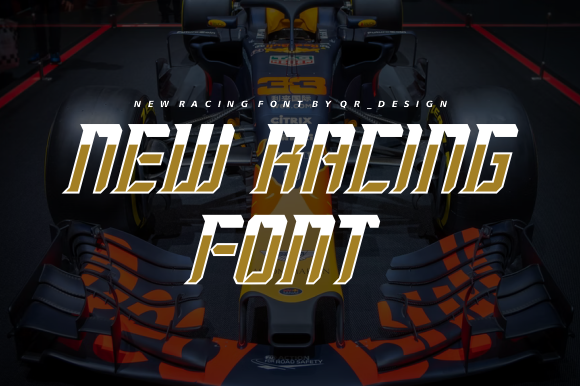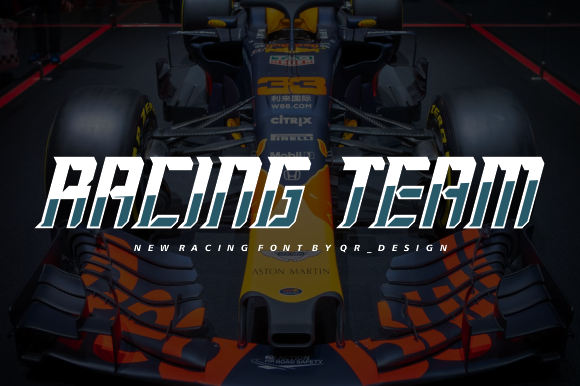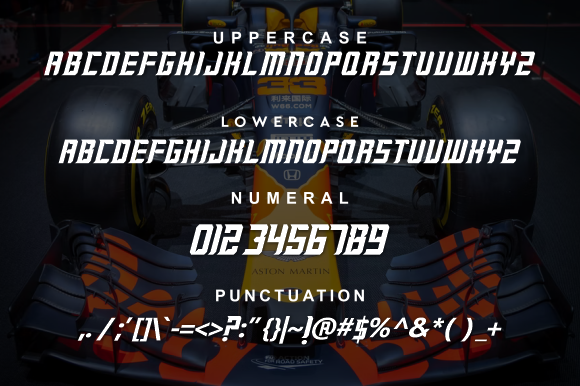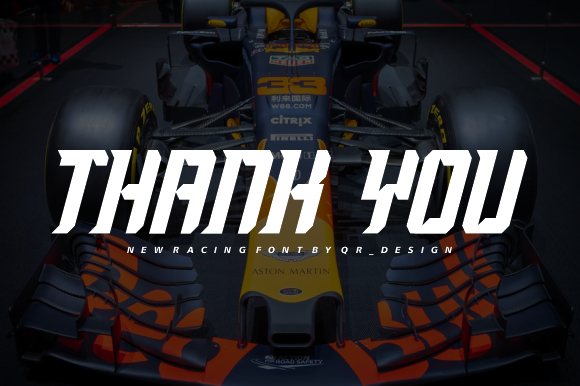
The Thrill of the Fast Lane: Unleashing the Power of Faster Racing Font
I’ll never forget the time I was working on a project for a client who wanted a bold, eye-catching font to capture the essence of speed and adrenaline. I scoured the internet, tried countless fonts, but nothing seemed to quite fit the bill. That was until I stumbled upon Faster Racing Font. It was like a breath of fresh air – the perfect blend of style, sophistication, and raw energy. In this article, I’ll share my experience with this amazing font, its features, and how to make the most of it in your designs.
An Honest Review of Faster Racing Font
- ✨ Bold and Authentic: Faster Racing Font is the real deal. Its bold, authentic design screams speed and performance, making it perfect for sport, automotive, car moto speed races, and other dynamic scenes.
- ✅ Trendy and Versatile: This font is incredibly versatile, suitable for a wide range of applications, from posters and flyers to social media graphics and website headers.
- 💥 High-Impact: The font’s bold design ensures it stands out, even at smaller sizes, making it ideal for creating high-impact visuals.
While Faster Racing Font is an excellent choice, there are a few things to keep in mind:
- ⚠️ Legibility at Small Sizes: While the font is bold, it can become a bit tricky to read at very small sizes. Make sure to test it in your design to ensure it remains legible.
- 🤔 Limited Formality: Due to its bold, sporty design, Faster Racing Font might not be the best fit for more formal or traditional designs.
The Backstory of Faster Racing Font
While the origins of Faster Racing Font might be shrouded in mystery, it’s clear that the designers had a passion for speed and performance. The font’s bold, authentic design seems to capture the essence of the fast lane, making it a popular choice among designers and crafters.
Q: What is Faster Racing Font best suited for?
A: Faster Racing Font is perfect for sport, automotive, car moto speed races, and other dynamic scenes. Its bold design makes it ideal for creating high-impact visuals.
Q: Is Faster Racing Font suitable for body text?
A: While Faster Racing Font is bold and eye-catching, it might not be the best choice for body text. Its bold design can make it difficult to read in large blocks.